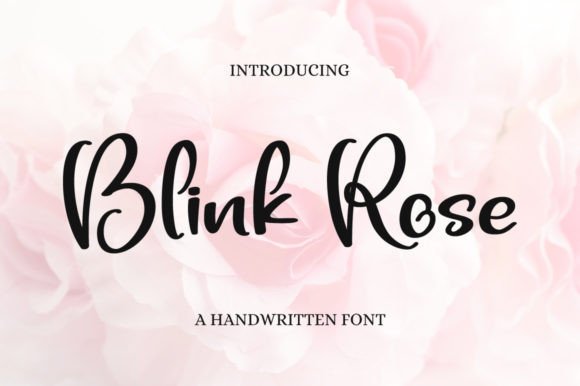
Introducing Blink Rose Font, a breathtaking script font that will captivate your heart and elevate your designs to ethereal heights. Immerse yourself in the enchanting world of Blink Rose, where elegance and creativity intertwine.
With its delicate curves and graceful strokes, Blink Rose is the epitome of timeless beauty. Its flowing lines evoke the fluidity of a gentle breeze, whispering secrets to the world. Let Blink Rose dance across your digital canvas, painting enchanting logos that leave an unforgettable mark.
Unleash your inner artist with Blink Rose, the perfect companion for crafting captivating social media posts and mesmerizing marketing materials. Its versatility knows no bounds, allowing you to express your unique voice in a myriad of ways.
For those seeking to create a lasting impression, Blink Rose is your font of choice. It is the perfect font for wedding invitations, adding a touch of ethereal romance to your special day. Its delicate flourishes will add a touch of elegance to any invitation, making your wedding announcement truly unforgettable.
But Blink Rose is more than just a font; it's an expression of your creativity. Its timeless appeal ensures that your designs will stand the test of time, leaving a lasting impression on your audience.